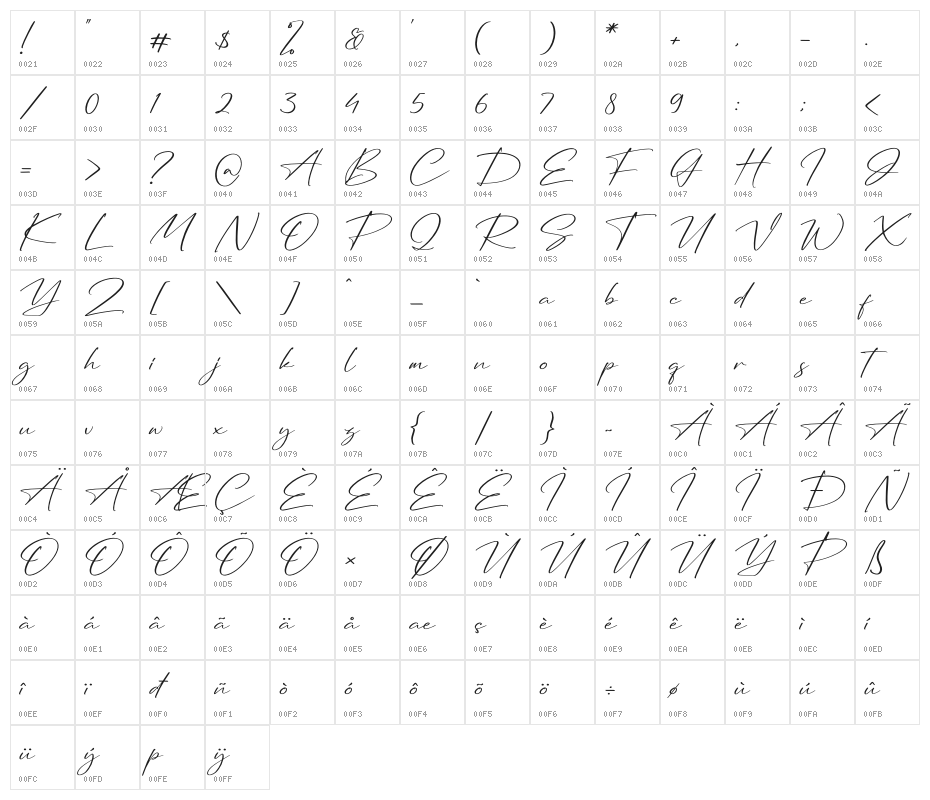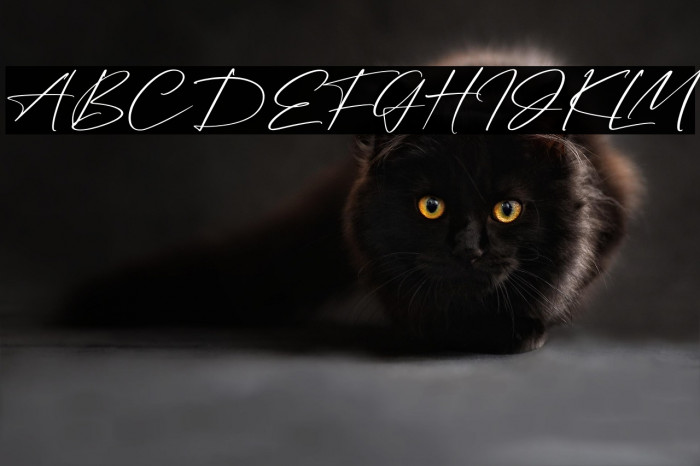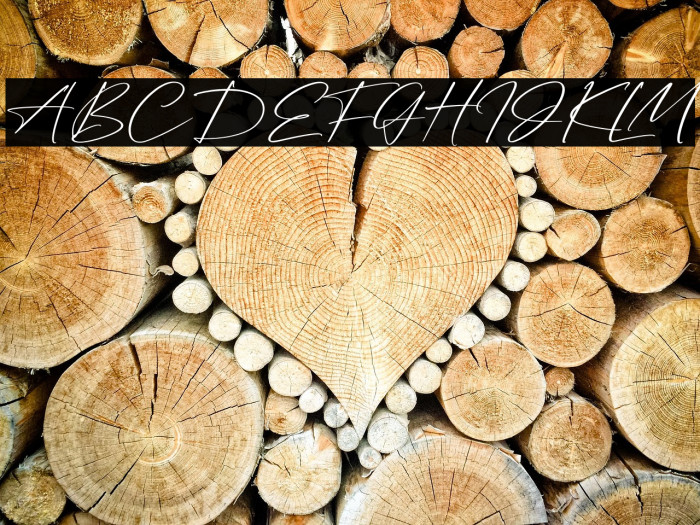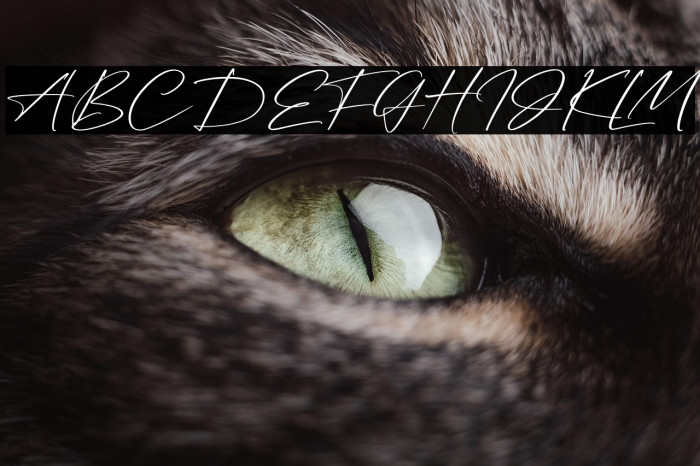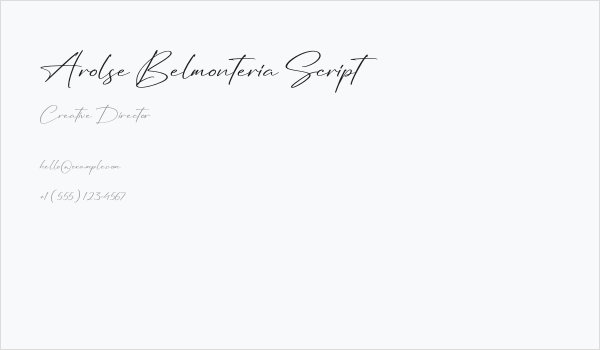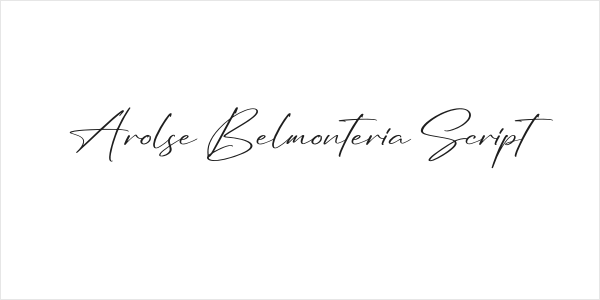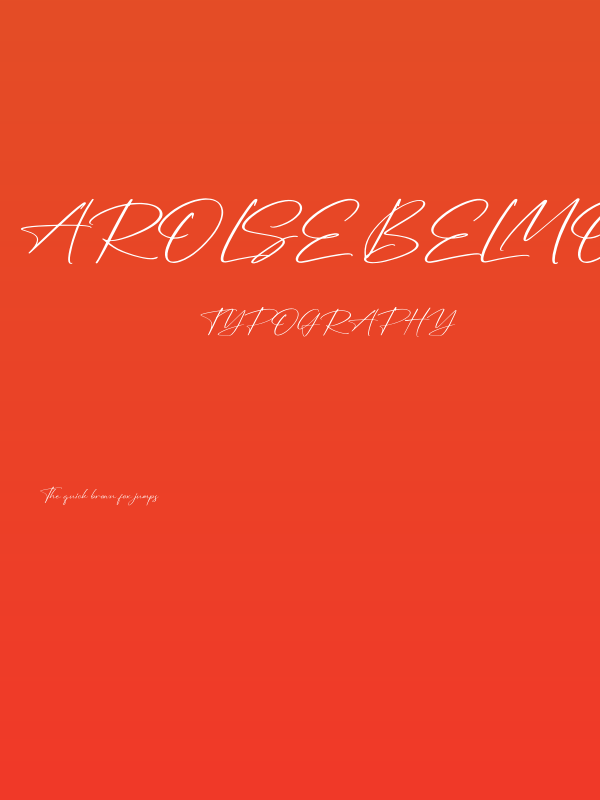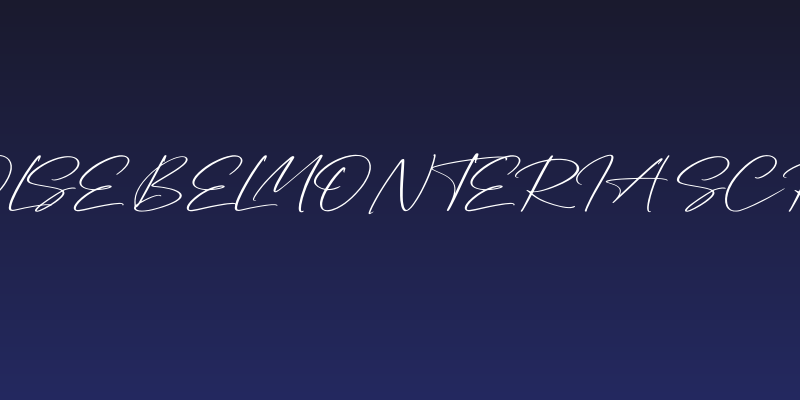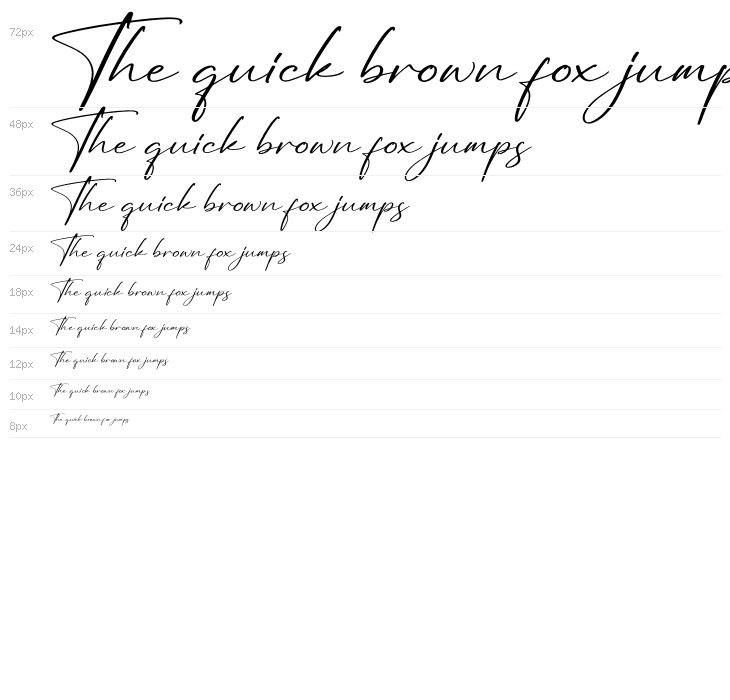
Arolse Belmonteria Script Font
Arolse Belmonteria Script Description
Elegant and flowing script font with a handwritten style, featuring smooth curves and a natural, cursive appearance.
| Use Case | Logos, Invitations, Decorative text. |
| Proposed Projects | Invitations, greeting cards, branding. |